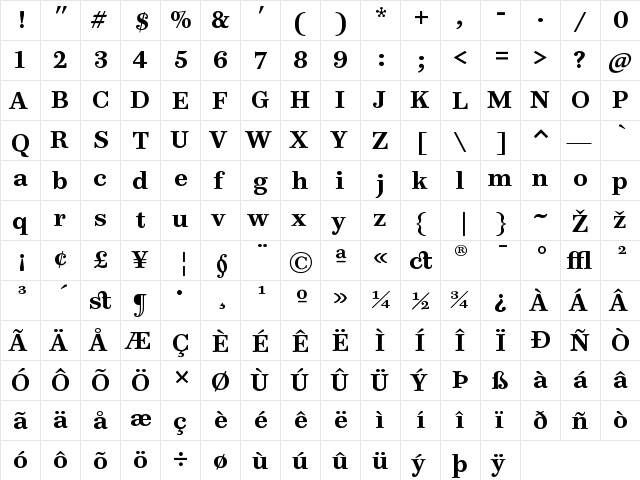
PB12TTP-BoldLF Regular Font Preview
PB12TTP-BoldLF Regular
Design Context for PB12TTP-BoldLF Typeface
PB12TTP-BoldLF is a composed and adaptable typeface that performs quietly and consistently across a wide range of design contexts. Its bold stroke weight gives it real presence on the page.